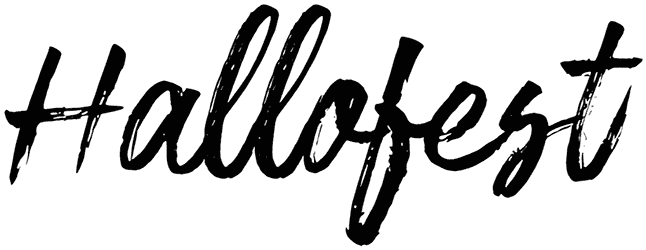
Cerita Senja Font
Cerita Senja is a script font that does not support numbers and punctuation. This font is very stylish and can convey a sense of freshness to the audience. You can use this font in designing web pages, posters, and banner ads. Cerita Senja not only enhances the quality of your work but also makes your content more compelling and productive.
“Cerita Senja” is a font display is made by hand, inspired by classic posters.
comes with uppercase, lowercase, numerals, punctuations and so many variations on each character include OpenType alternates, common ligatures and also additional swash to let you customize your designs. Perfect to use for Logotype, Letterhead, Poster, Apparel Design, Label and etc.